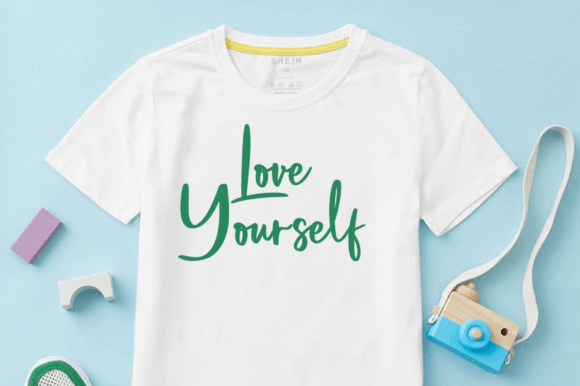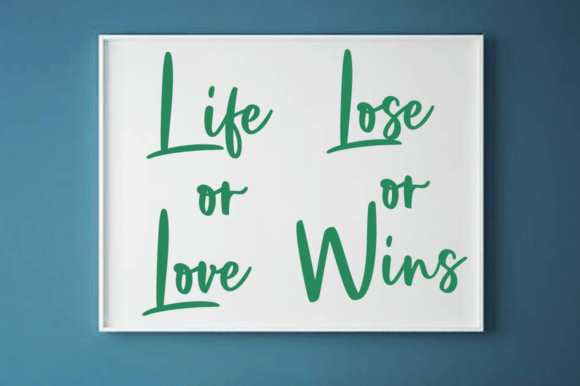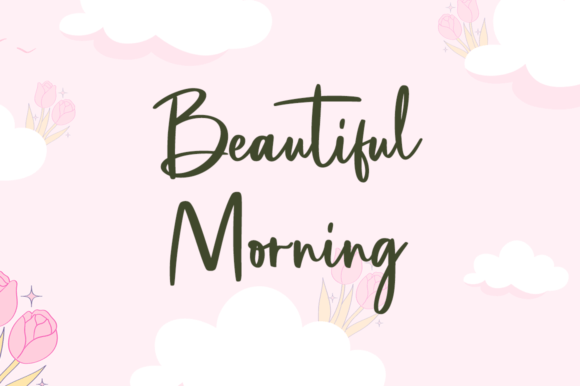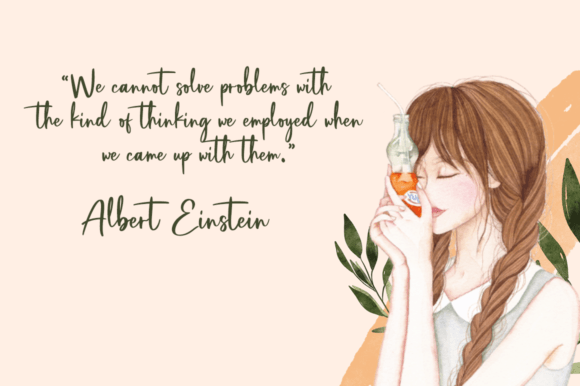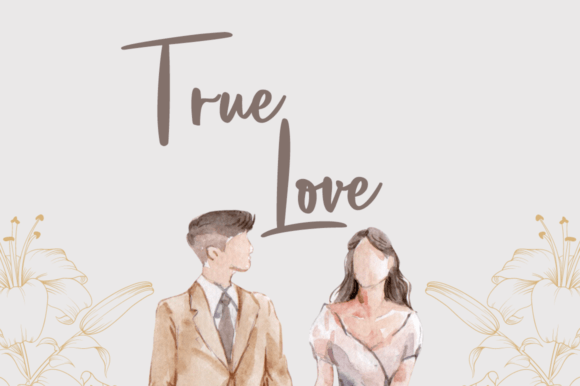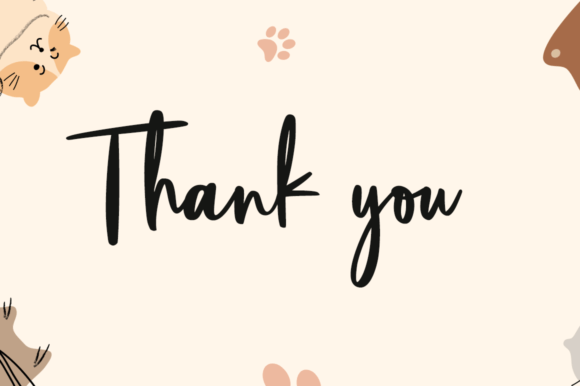
The Perfect Script: Unlocking the Beauty of Bring Love Font
Do you remember the thrill of designing a wedding invitation or a special logo for a dear friend? The excitement of pouring your heart into every detail, from the perfect font to the elegant color scheme? For many of us, it’s these moments that bring out the best in our creativity, and a beautiful font can make all the difference.
Enter Bring Love Font, a stunning handwritten script font that exudes elegance and charm. With its flowing, graceful curves, it’s the perfect choice for invitations, logos, and branding that demand a personal and sophisticated touch. As a designer, you know how valuable it is to have a versatile font that can elevate your projects and bring warmth and creativity to your clients’ visions.
Bring Love Font Key Features
- Unique Characteristics: The font features a unique, hand-drawn style with subtle imperfections, giving it a warm and inviting feel.
- Font Dimensions: The font dimensions are designed to be elegant and refined, with a x-height of 0.65 and a cap height of 0.85, creating a balanced and harmonious visual effect.
Bring Love Font Review
As a designer, I was excited to dive into the Bring Love Font, and I’m here to give you the lowdown.
- Cute and playful vibe: The Bring Love Font is perfect for projects that need a touch of whimsy and fun.
- High-quality typography: The font is well-crafted, with clear and crisp letterforms that are easy to read.
- Good for short text: The font is particularly effective for short phrases or headings, where its playful personality can shine.
- Not suitable for long text: The font’s playful nature can make it challenging to read for extended periods.
- Limited language support: The font may not support all languages, which can be a limitation for multilingual projects.
- May not be ideal for formal projects: While the font is cute and playful, it may not be the best choice for formal or professional projects.
Overall, I think the Bring Love Font is a great choice for projects that need a fun and playful touch. While it may have some limitations, its high-quality typography and cute vibe make it a solid option for designers looking to add some whimsy to their work.
For optimal results, use the Bring Love Font in conjunction with other playful, cursive fonts to create a whimsical design aesthetic.
Experiment with different font sizes and colors to create visual interest and emphasis.
The Bring Love Font is ideal for:
Birthday and holiday cards
Children’s book illustrations and educational materials
Alternatives to Bring Love Font
Caslon
Caslon is a serif typeface designed by William Caslon in 1722. It is a classic, elegant font suitable for formal and traditional designs. When to use: For formal invitations, business cards, and other professional materials where a traditional feel is desired.
Caslon is similar to Bring Love Font in its classic and elegant feel, but it is a more formal and traditional font. While Bring Love Font has a softer, more romantic touch, Caslon is more structured and formal.
Playfair Display is an elegant, high-end serif typeface designed by Claus Eggers Sørensen in 2010. It is a luxurious font suitable for high-end designs, luxury branding, and fine printing. When to use: For high-end branding, luxury packaging, and other materials where a sense of luxury is desired.
Playfair Display is similar to Bring Love Font in its elegant and luxurious feel, but it is a more modern and high-end font. While Bring Love Font has a softer, more romantic touch, Playfair Display is more dramatic and attention-grabbing.